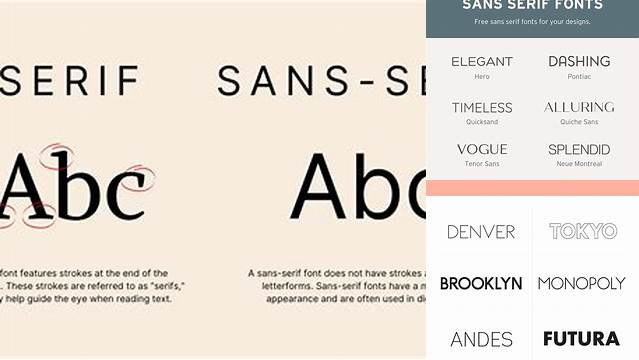
Sans Serif Fonts: Your Guide To Clean Typography
Alright, guys, let's dive into the world of typography and uncover the magic behind sans serif fonts! Ever wondered why some fonts look so sleek and modern? Well, the answer often lies in their structure. Sans serif fonts are a cornerstone of contemporary design, popping up everywhere from websites and apps to magazines and billboards. They're all about simplicity and clarity, making them a go-to choice for readability and a clean aesthetic. This guide will be your friendly companion, exploring everything from the basic definition to the nuances of their use. We'll chat about their origins, why they're so popular, and how you can choose the perfect one for your project. So, buckle up, because we're about to embark on a font-tastic journey!
What Exactly Are Sans Serif Fonts?
So, what are sans serif fonts? The term “sans serif” is French for “without serif.” Serifs, in the context of typography, are those little decorative strokes or extensions at the end of letters. Think of them like the tiny feet or embellishments you see on some letterforms. Sans serif fonts, on the other hand, ditch those extra strokes, resulting in clean, straightforward letter shapes. This absence of serifs is the defining characteristic. They prioritize clarity and ease of reading, especially in digital environments where screen resolution can sometimes impact the legibility of more intricate designs. Because of their inherent simplicity, sans serif fonts often appear more modern and minimalist. They give off a vibe of understated elegance, making them a solid choice for any project wanting a contemporary feel. The beauty of sans serif fonts lies in their versatility. They can be bold and commanding, or subtle and refined, depending on the specific typeface and how it's used. This adaptability makes them ideal for a wide range of applications, from headlines and body text to logos and branding materials. They're like the chameleons of the font world, always ready to adapt and blend in. Understanding this fundamental aspect of sans serif fonts is crucial for anyone keen on improving their design chops. This basic knowledge will allow you to make informed decisions about your font selection process and ensure your project reaches its full potential. The key takeaway is: no serifs = sans serif.
The Anatomy of a Sans Serif Font
To really understand sans serif fonts, it helps to break down their anatomy. Unlike serif fonts with their delicate finishing strokes, sans serif fonts are built upon the bare essentials. Let's delve into the structural elements. First off, there are the stems, which are the main vertical or diagonal strokes that define a letter's basic shape. In sans serif fonts, these stems are often uniform, contributing to a sense of visual consistency. Then, there are the bowls, the rounded or curved parts of letters like 'o,' 'b,' or 'g.' In sans serif fonts, these bowls tend to be clean and circular or oval, lacking the variations often found in serif fonts. The counters are the enclosed or partially enclosed spaces within letters, such as the inside of the 'o' or the 'a.' The shape and size of these counters can significantly influence a font's legibility. Sans serif fonts generally have open and generous counters, which enhance readability, especially at smaller sizes. The x-height is another key element. This refers to the height of the lowercase 'x' in a specific font. Sans serif fonts often boast a taller x-height, which makes lowercase letters more prominent and easier to distinguish from each other. It's the little details, like the stem thickness and the shape of the bowls and counters, that give each sans serif font its unique character. Some are bold and assertive, while others are light and airy. Some lean towards geometric precision, while others embrace a more humanistic style. Understanding the anatomy helps you appreciate the subtle differences and choose a font that perfectly suits your needs. Knowing how to recognize and analyze these structural elements is a core skill for any designer or anyone involved in visual communication.
Comparing Sans Serif to Serif Fonts
Alright, let's pit sans serif fonts against their stylish cousins, the serif fonts! Think of it like a design showdown. Sans serif fonts, as we know, are all about clean lines and simplicity. They're modern, often exuding a minimalist vibe. Serif fonts, on the other hand, bring those little decorative flourishes, the serifs, to the party. These serifs can provide a classic, more traditional feel. One primary difference lies in their readability in different contexts. Sans serif fonts often shine on digital screens, where they render well and maintain clarity, even at smaller sizes or lower resolutions. The absence of serifs prevents the letters from appearing blurry or muddled. Serif fonts, historically favored in print, can be great for body text, as those serifs can help guide the reader's eye across the page. However, in the realm of web design or on mobile devices, sans serif fonts frequently win the readability contest. When choosing between the two, it's often a matter of context and preference. If you're going for a contemporary, clean look, sans serif fonts are a safe bet. If you want something that feels more established or perhaps a bit vintage, a serif font might be the better choice. It's also worth noting the differences in personality. Sans serif fonts tend to feel more modern, direct, and straightforward. They're often associated with technology, innovation, and a clean aesthetic. Serif fonts, on the other hand, can evoke feelings of trust, tradition, and sophistication. Consider the tone you want to set. Ultimately, the best choice depends on your specific design goals and target audience.
History and Evolution of Sans Serif Fonts
Let’s rewind the clock and explore the fascinating history of sans serif fonts. Surprisingly, they’re not a recent invention. The earliest sans serif fonts started to appear in the early 19th century. Initially, they were seen as novelties, even considered somewhat crude compared to the ornate serifs. These early designs were often simple and utilitarian, intended for display purposes rather than extended reading. As time marched on, however, their popularity grew. The industrial revolution, with its focus on efficiency and modernity, fueled the adoption of sans serif fonts. These fonts perfectly embodied the streamlined aesthetic of the era. The 20th century saw a massive surge in the evolution of sans serif fonts. Various movements like the Bauhaus and Art Deco embraced the simplicity and geometric forms of these fonts. Designers began experimenting with different weights, styles, and character shapes, leading to the creation of iconic typefaces that we still use today. The digital age further accelerated the evolution of sans serif fonts. With the rise of computers and the internet, the need for readable fonts on screens became paramount. Sans serif fonts, with their inherent clarity, were perfectly suited for the task. The explosion of web design has resulted in a wealth of sans serif fonts designed specifically for digital use. These fonts are optimized for screen legibility, ensuring a smooth reading experience across various devices and resolutions. This rich history showcases how sans serif fonts have adapted and thrived through changing times. From their humble beginnings as typographic experiments to their current status as a design staple, they've consistently mirrored and shaped the aesthetic preferences of their time. The story of sans serif fonts is a journey of innovation, adaptability, and enduring appeal.
Early Examples of Sans Serif Fonts
To truly grasp the historical context, let's take a look at some of the early pioneers of sans serif fonts. These fonts laid the groundwork for everything we see today. One of the earliest examples is the so-called